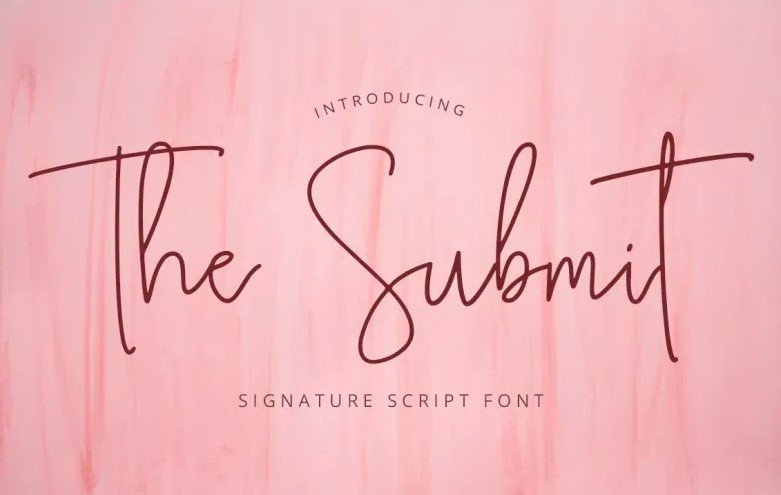
Hi beautiful designers, if you want to make some gorgeous designs and wanted to gain some real-world experience then you must have to see Submit Font which comes with tons of features that support multilingual and can be download for free.
It contains great and eye-catchy features which will look amazing on all computer screens as well as large headers. Also, it is available in truetype format that can be download with the opentype feature.
There are lots of great designers who loved this typeface because of its unique texture, amazing readable characters, and characters layouts which are perfect for all pieces of stuff.
View Of The Submit Font
This is a top quality and modern scripted as well as handwritten typeface which looks perfect and great in all kinds of works. You can download it for free can be used as pairing with ccean font.
There are so many projects in which you can build and develop your portfolio strong, you can easily develop website designs, WordPress covers, letterforms, invitations, Facebook posts, and many more other cool designs for free. It is great to use with boogaloo font.